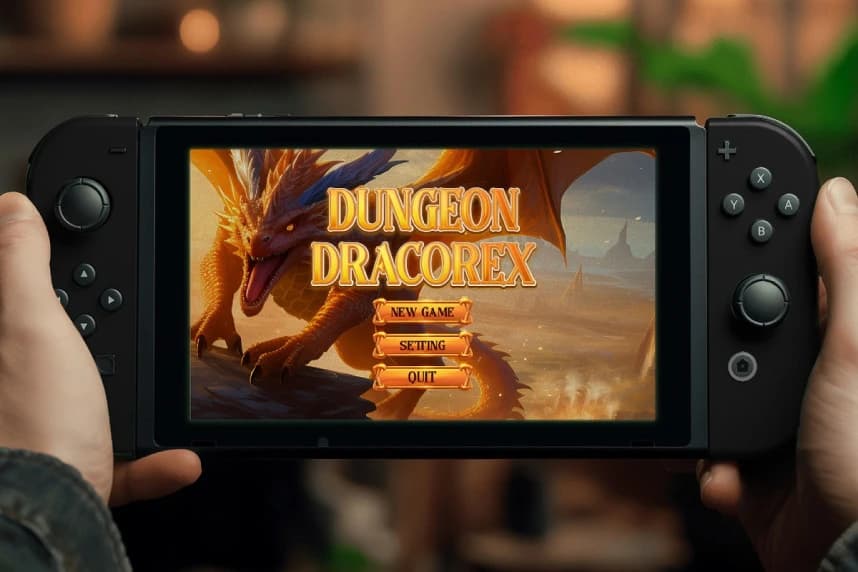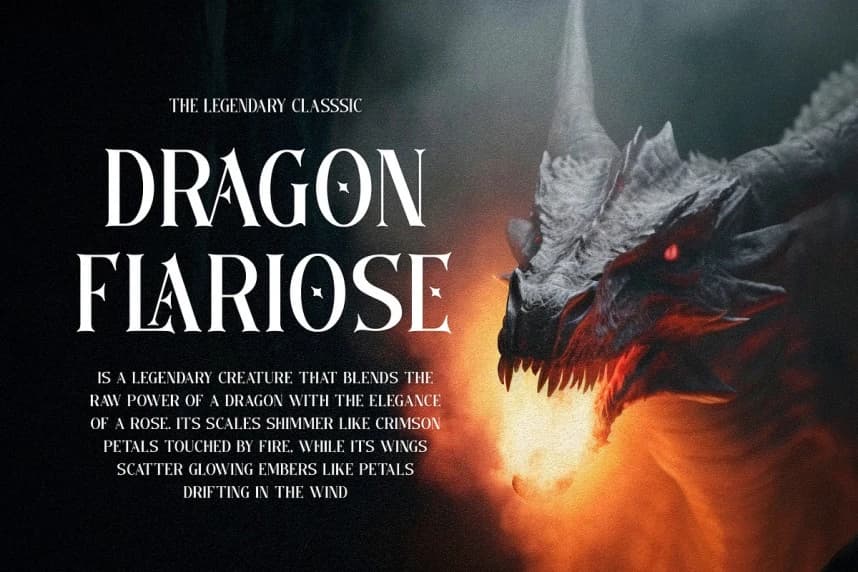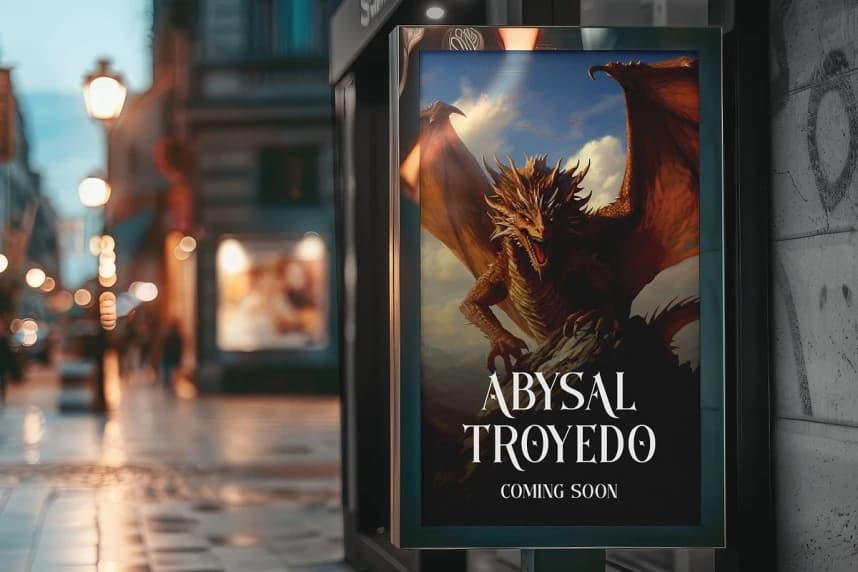
Regsrok Font
Regsrok Font is a refined fantasy game serif typeface designed with a lighter, more elegant touch while still capturing the essence of magical worlds and epic storytelling. With its sharp, battle-worn details and heroic letterforms